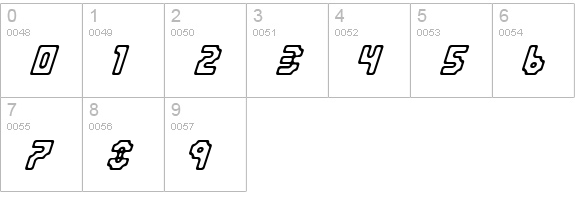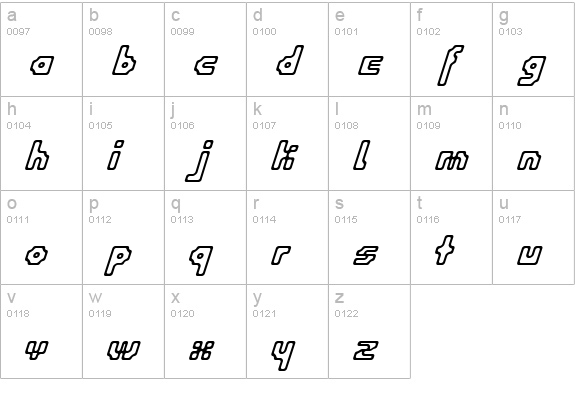
Eniltuo Font Details
Eniltuo font is a modern and stylish typeface that is perfect for a wide range of design projects. With its clean lines and elegant curves, this font exudes sophistication and versatility. Whether you are designing a logo, website, or poster, Eniltuo font will add a touch of class to your work. What sets Eniltuo font apart is not only its aesthetic appeal but also the fact that it is completely free to download. That's right, you can elevate your designs with this beautiful font without having to spend a dime. Simply head over to FontsMarket.com to access this fantastic font and start using it in your projects today. Don't miss out on the opportunity to enhance your designs with Eniltuo font - download it for free and take your creativity to the next level!